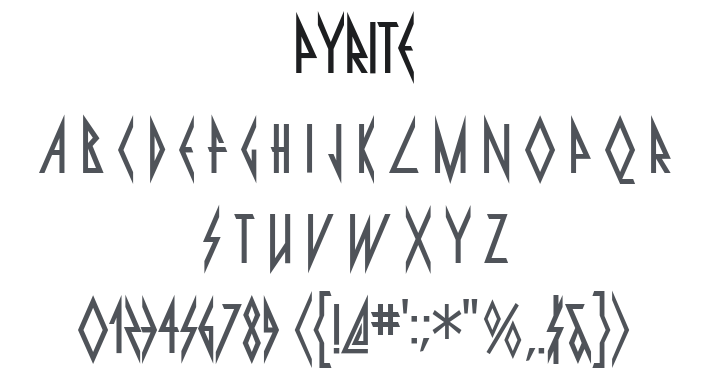
Pyrite Font
About Pyrite
Pyrite is a bold, angular heavy metal display typeface with sharp, pointed letterforms that bristle with edgy, gothic-modern energy — clean geometric construction meets aggressive, knife-like stroke endings. Smart OpenType features adjust the L's bottom stroke depending on the following letter, with LL and OO ligatures for smoother word flow. Perfect for metal band logos, rock posters, game titles, dark editorial headlines, and any design demanding fierce, uncompromising attitude.